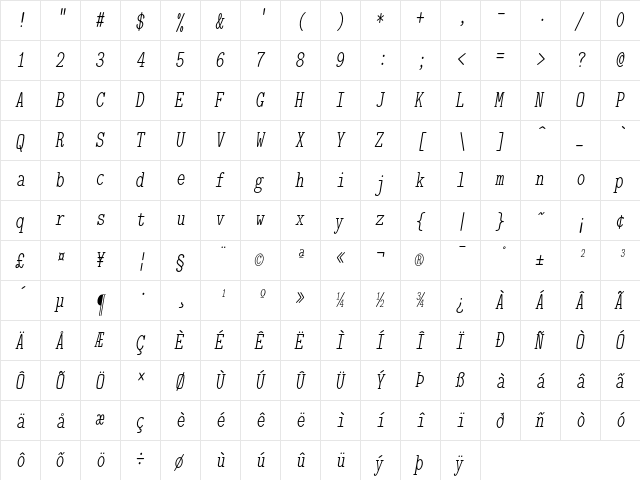
Latin Modern Mono Light Cond 10 Oblique Font Preview
Design Context for Latin Modern Mono Light Cond Typeface
Latin Modern Mono Light Cond uses fixed-width spacing throughout, giving it the structured, systematic character associated with coding environments and technical documentation. Its italic angle brings a sense of urgency and motion to the letterforms. The delicate stroke weight brings airiness and refinement to layouts.
Pro Tip: Use Latin Modern Mono Light Cond with slightly increased line-height for extended reading — fixed-width spacing can feel dense in longer passages without extra breathing room.